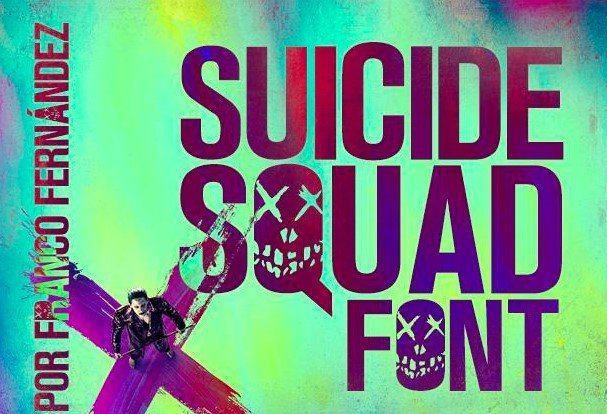
You can effortlessly and efficiently use this font for your beautiful projects, as it offers the best features comparable to those of premium paid fonts. It contains 300 glyphs and more special characters as well as great punctuators which you can use for putting some additional designs without using any type of shapes.
What Type of Font Is Suicide Squad?
The Suicide Squad Font is the famous and amazing typeface which was product of the Franco Fernández.